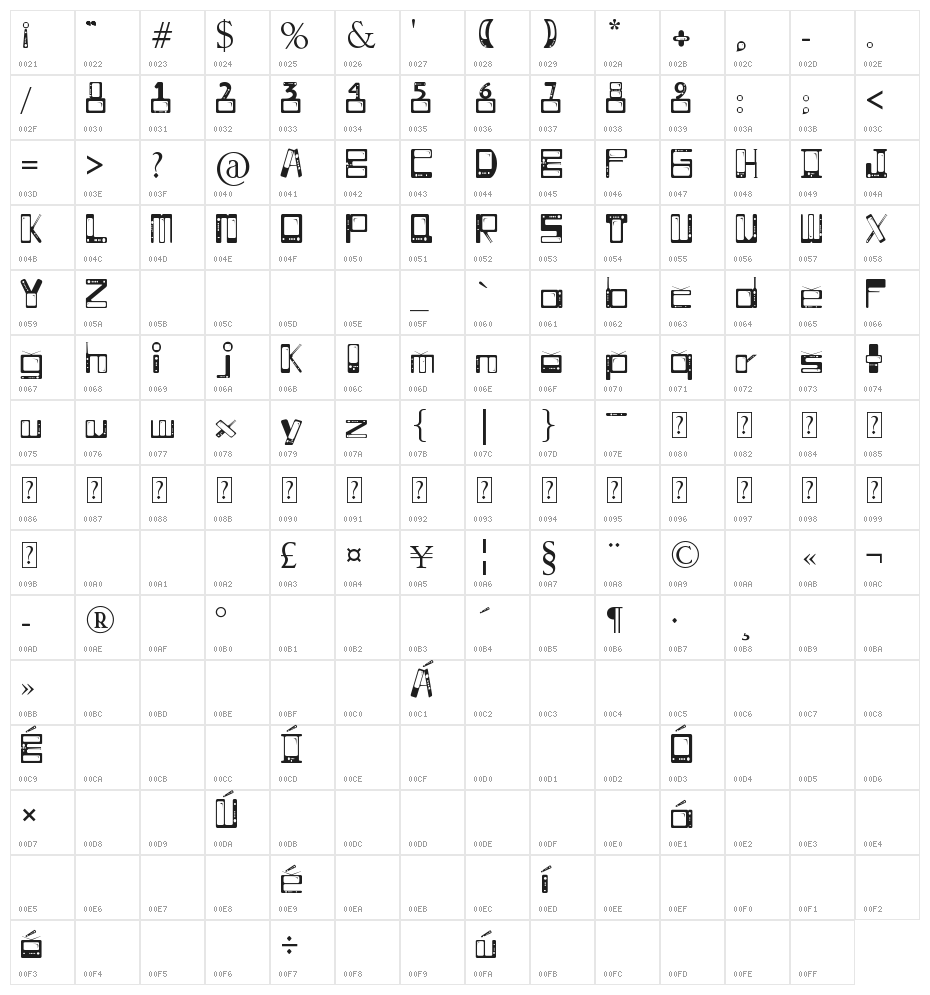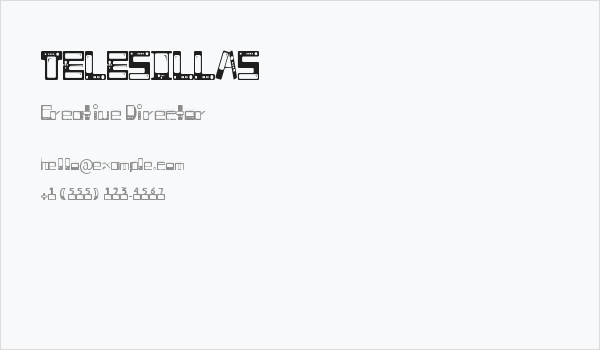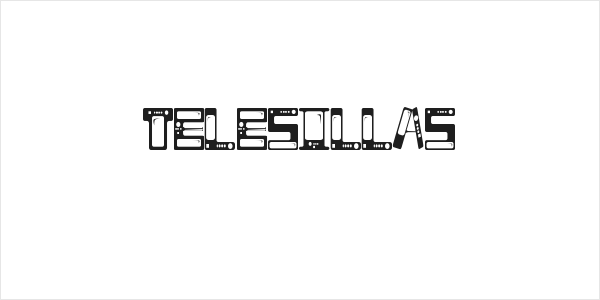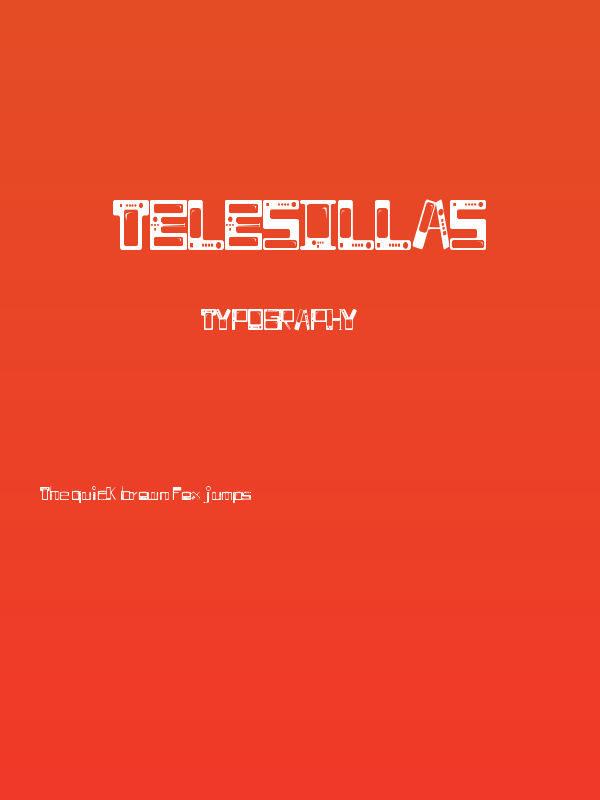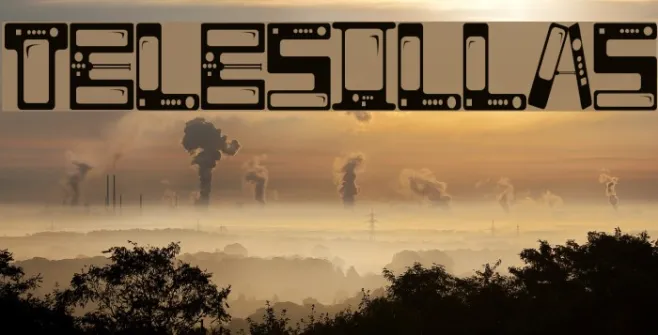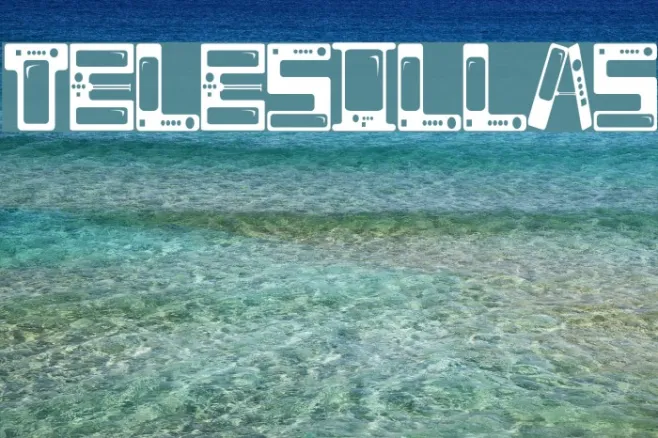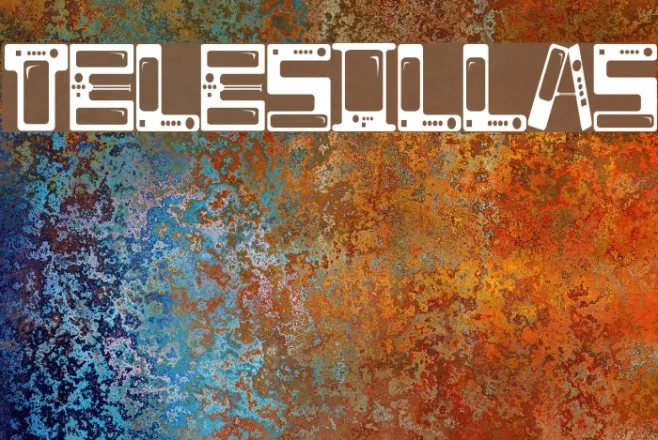
TELESILLAS Font
TELESILLAS Description
This font is a playful and creative display typeface that incorporates elements of retro television sets into its design. Each character features unique details reminiscent of old TV screens, complete with antennas and dials, giving it a nostalgic yet modern feel. The bold and geometric shapes are eye-catching, making it ideal for projects that require a fun and distinctive look. The font maintains a consistent style across uppercase, lowercase, numbers, and special characters, ensuring versatility in various design applications.
| Overall Style | Retro, Playful |
| Proposed Projects | Ideal for vintage-themed posters, retro branding, creative advertising, and playful graphic design projects. |